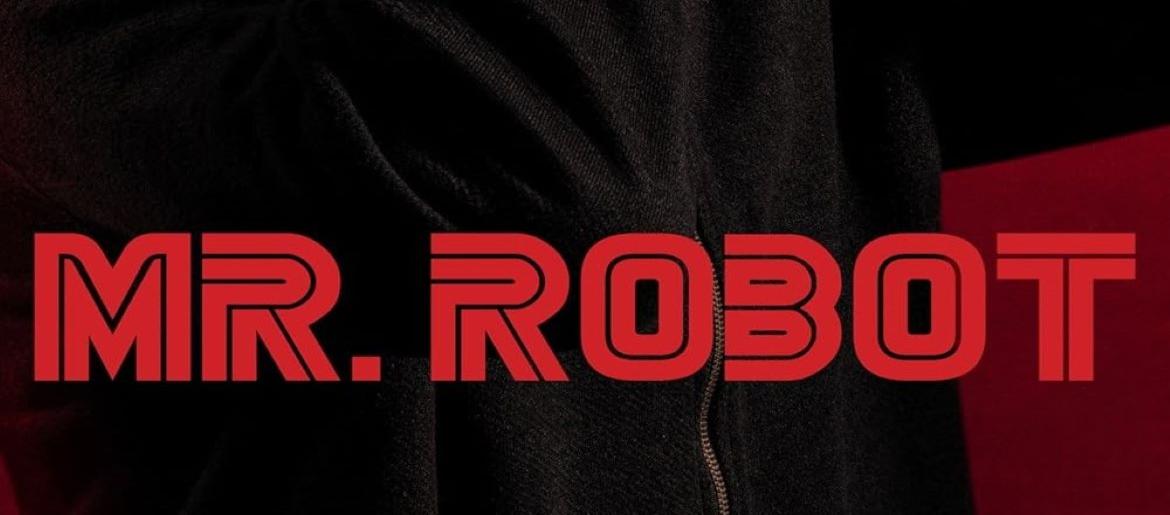
Mr. Robot Font
Mr. Robot Font is instantly recognizable for its bold, blocky style that conveys rebellion and cyber-anarchy. While the original is custom, the closest alternative resembles the Sega font, offering sharp geometric lines and heavy weight that communicate control and modernity while still feeling subversive. You can also explore more free fonts for similar edgy designs.
The typeface used in the Mr. Robot logo delivers a commanding presence with clean geometric forms and heavy weight. The slightly distressed, blocky style adds a raw, underground feel, reflecting Elliot Alderson’s battle against corporate corruption and his hacker-driven crusade. Its visual impact reinforces the series’ gritty, anti-establishment narrative.
About Mr. Robot
Mr. Robot is a critically acclaimed American psychological thriller television series created by Sam Esmail. Premiering in 2015, it follows Elliot Alderson, a cybersecurity engineer and hacker who becomes involved with a mysterious underground hacker group aiming to disrupt corporate America. The series is celebrated for its intense narrative, complex characters, and exploration of digital culture, mental health, and social rebellion.